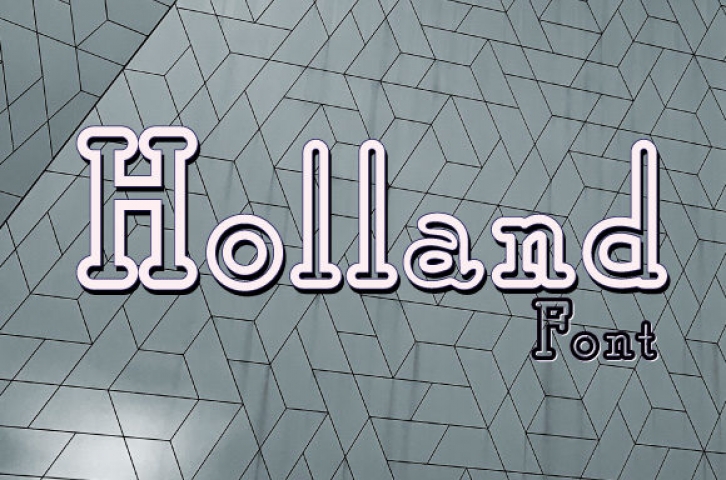
Holland is a bold and authentic serif font. This font reads as strong, confident, and dynamic and can add tons of nostalgic character to your designs.